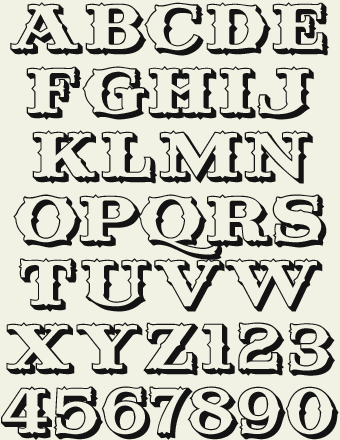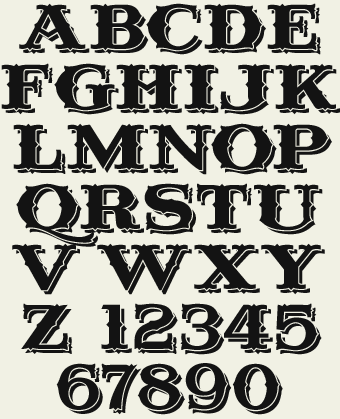
LHF Riverboat
Styled after a Ross F. George sample in the old Speedball books. This set includes 6 fonts:
LHF Riverboat 1 Letters (plain style)
LHF Riverboat 1 Lines (goes on top of 1 letters)
LHF Riverboat 2 Letters (drop shadow style)
LHF Riverboat 2 Lines (goes on top of 2 letters)
LHF Riverboat 3 Letters (block shadow style)
LHF Riverboat 3 Lines (goes on top of 3 letters)
Type your message using one of the "Letters" fonts, then duplicate the text and paste on top. Finally, change the top font to the appropriate "Lines" font (the number of the Lines font must be the same as the Letters font you used). This creates the effect shown in the examples on the left.
This style gives any design an instant early 1900's appearance. Any designer doing classic designs will find this set to be very versatile and a time saver.
Riverboat 1 Letters with Riverboat 1 Lines
Riverboat 2 Letters with Riverboat 2 Lines
Riverboat 3 Letters with Riverboat 3 Lines
Getting the most out of Riverboat
Step 1: Type your message using on of the "Letters" fonts. In this example, we have chosen "LHF Riverboat Letters 1" for clarity.
Step 2: Duplicate the text we typed and place it on top of the letters. You won't notice any difference yet, because the fonts are the same of course.
Step 3: Change the top text to "LHF Riverboat Lines 1". Then change the color of that font.
Step 4: Experiment with different outlines and shadows for interesting contrast and to add depth to the letters.
Step 5: There are 3 extra ornaments in the "Lines" fonts (see chart at left). Here we have added the extra diamond ornament found on the "=" key.